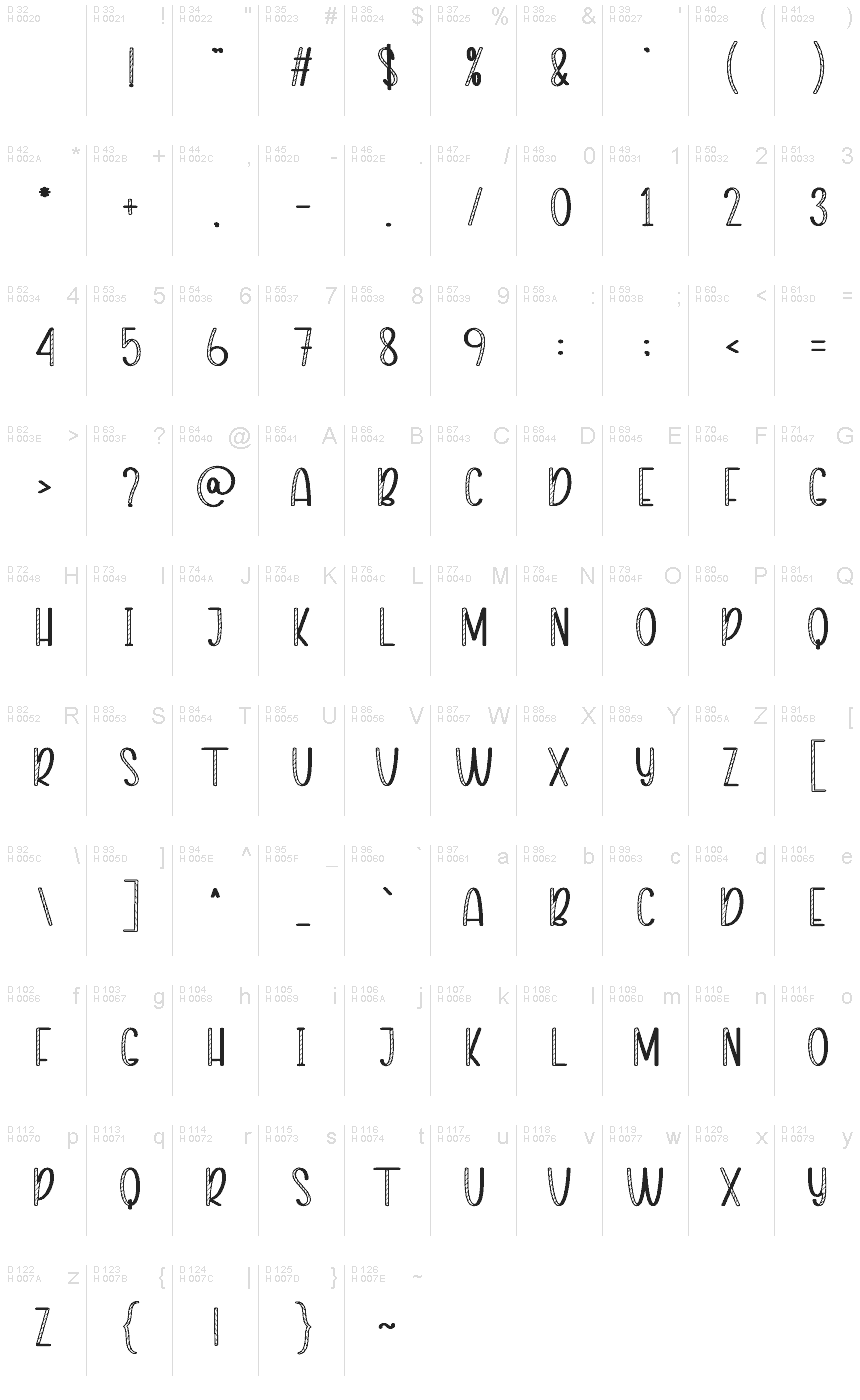
Happy Nightday
Happy Nightday font by Andi Moz is a condensed, stylized typeface with uniquely decorative letters. Featuring all uppercase glyphs, each letter distinguishes itself by the multitude of condensed textures it has inside its body. A two-layer outline frames every letter, giving the font a shadow inner-round look suitable for playful and fun designs.
As a free display font, Happy Nightday’s whimsical and humorous nature is perfect for creating fun posters, book covers, apparel designs, packaging projects for kids’ products and toys. It’s suitable to use in modern branding applications in logos or slogan lines on both printed and digital materials.